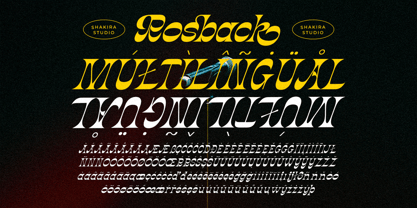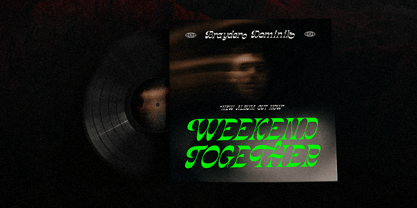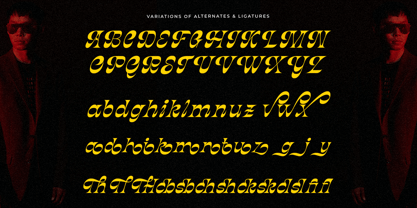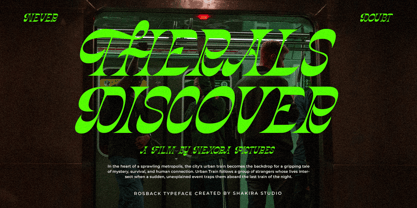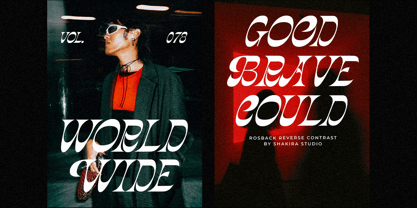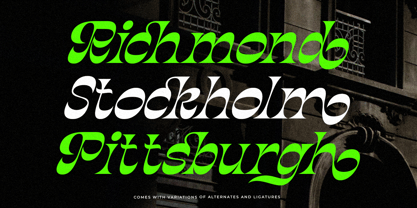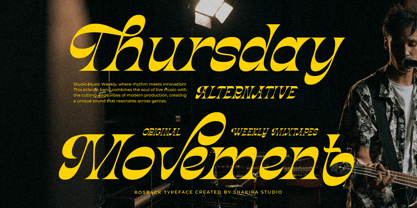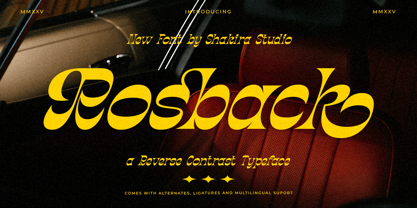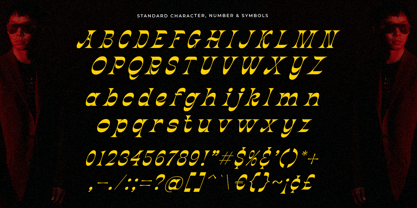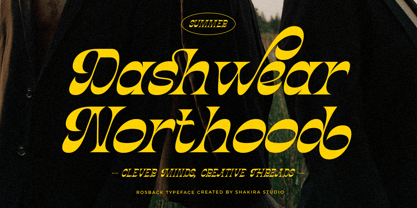
Rosback
The Rosback Font Family was designed by Idhham Cholid Rikzano Yahya and published by Shakira Studio. Rosback contains 1 styles. More about this family
Rosback – Stylish Reverse Contrast Display Serif
Rosback is a display serif font with a unique reverse contrast, delivering a distinctive and elegant look. Equipped with alternates and ligatures, this font offers exceptional flexibility in design.
Perfect for branding, posters, magazines, product packaging, and various print designs that require a modern vintage touch with a strong character. With multilingual support, it is highly versatile for global design needs.
• All Multilingual symbol
• Opentype features ( ligature, alternate )